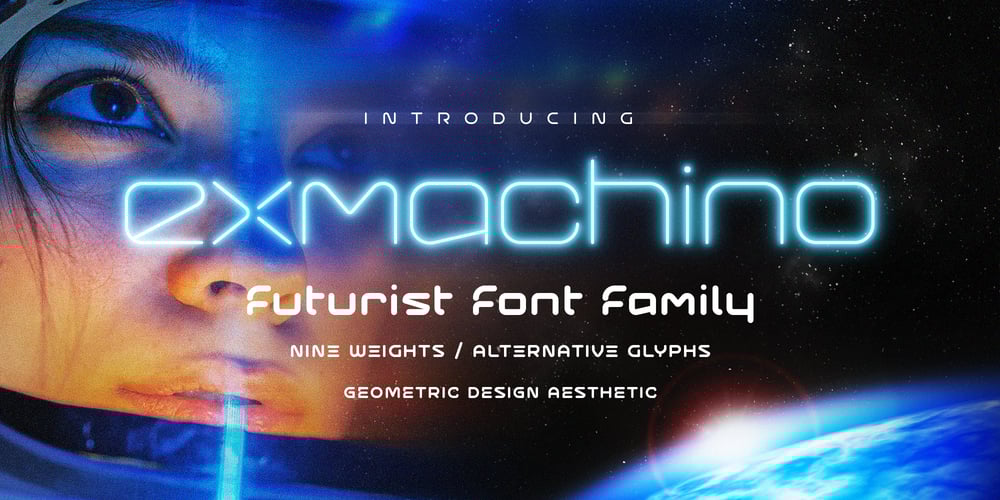
Exmachino
Exmachino font
Exmachino Font Family was designed by Richard Chambers and published by Borderline Artistic. Exmachino contains 9 styles and family package options. Exmachino is a rounded geometric monoline display font. Taking inspiration from futurism and minimalism, the letterforms convey an uncompromising machine-like quality. Many futuristic geometric fonts only have uppercase characters but Exmachino attempts to bring the unorthodox geometric styling to a full set of characters and weights.